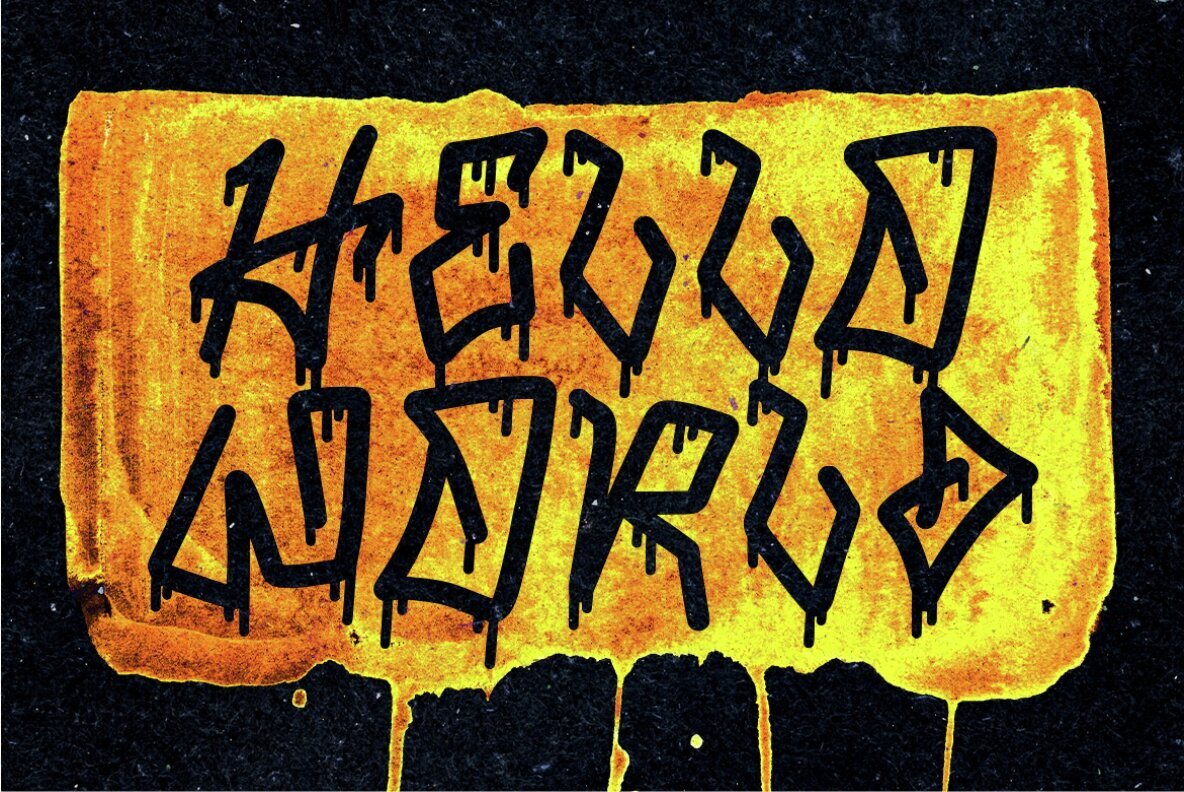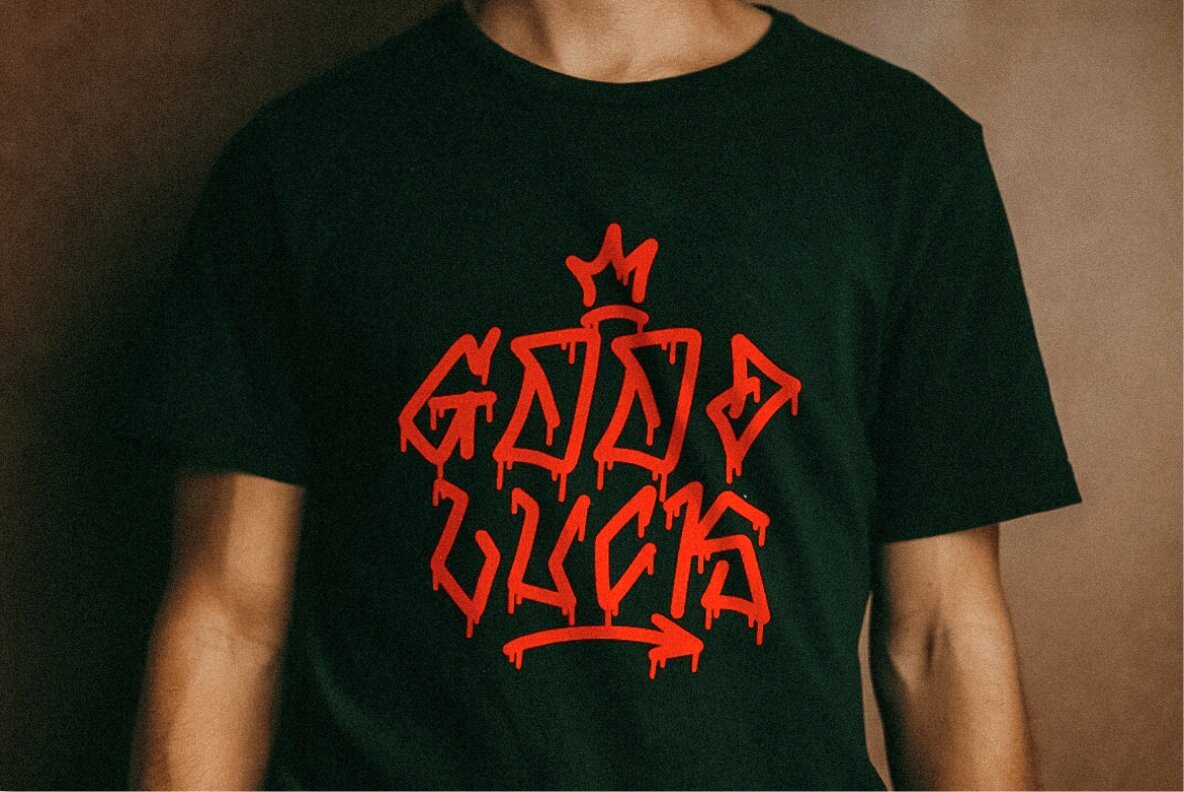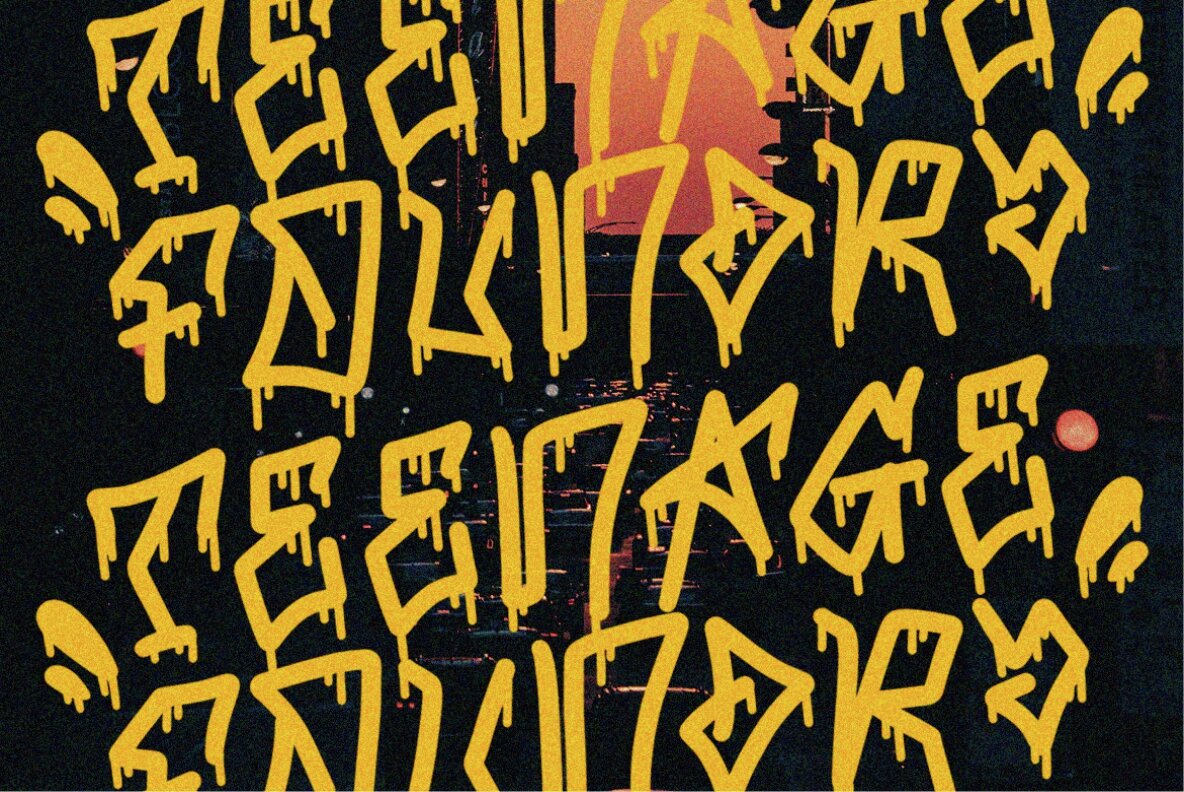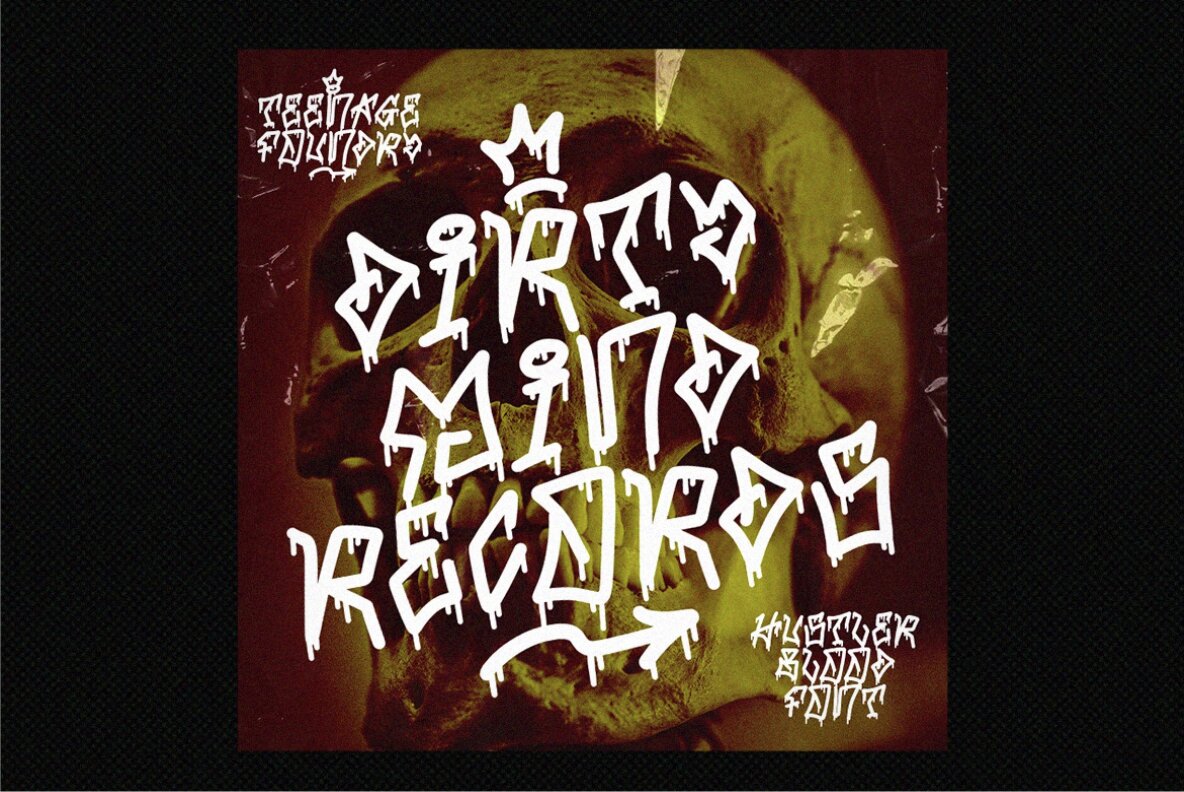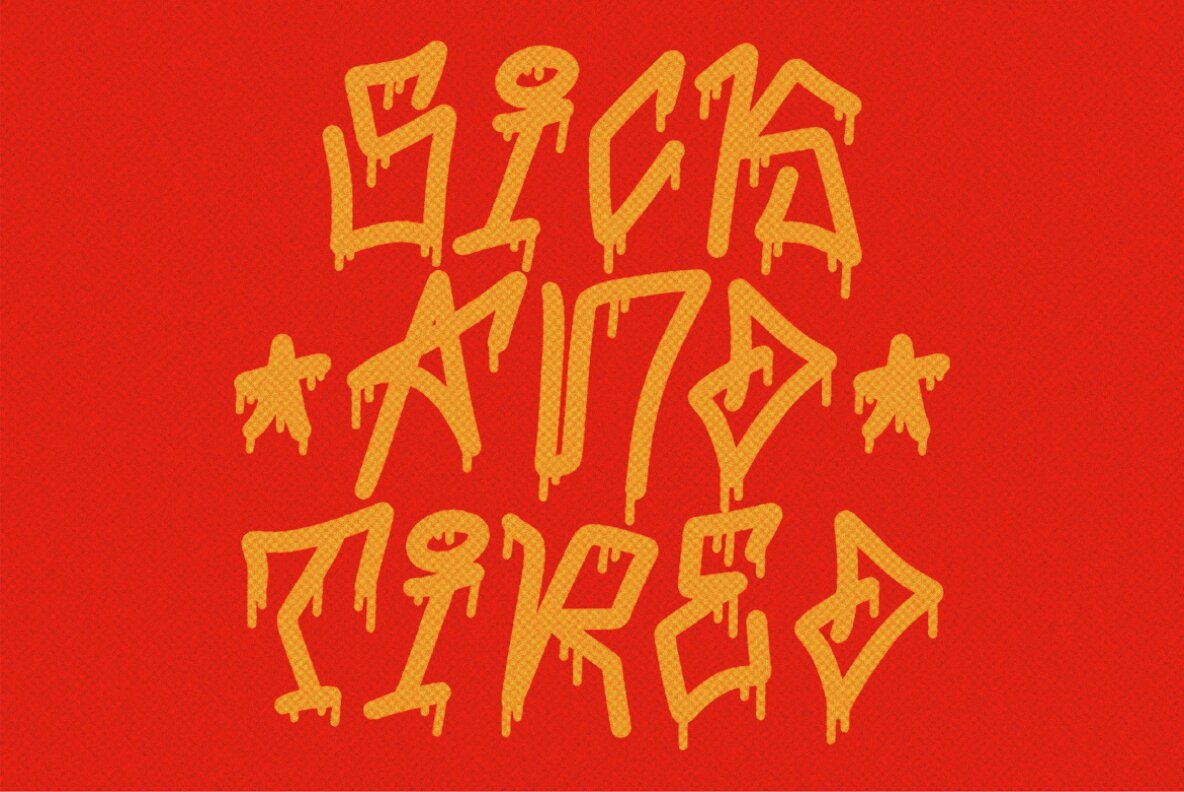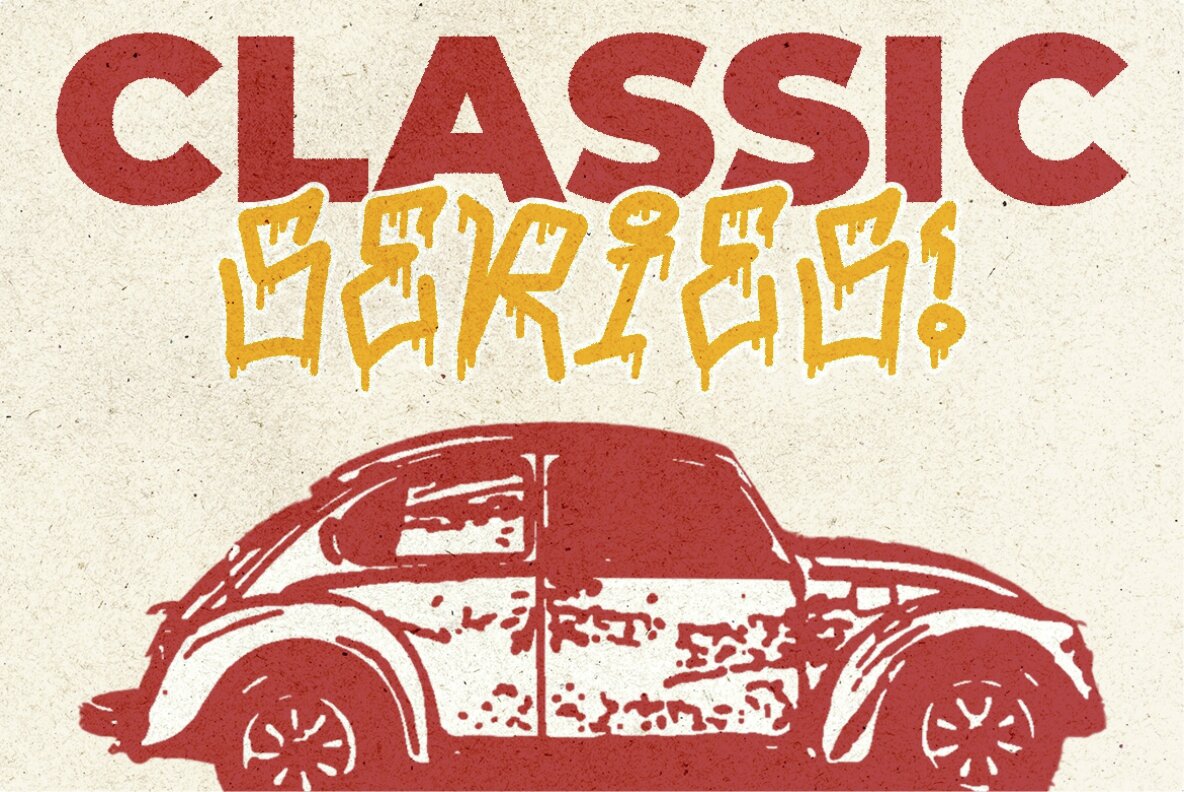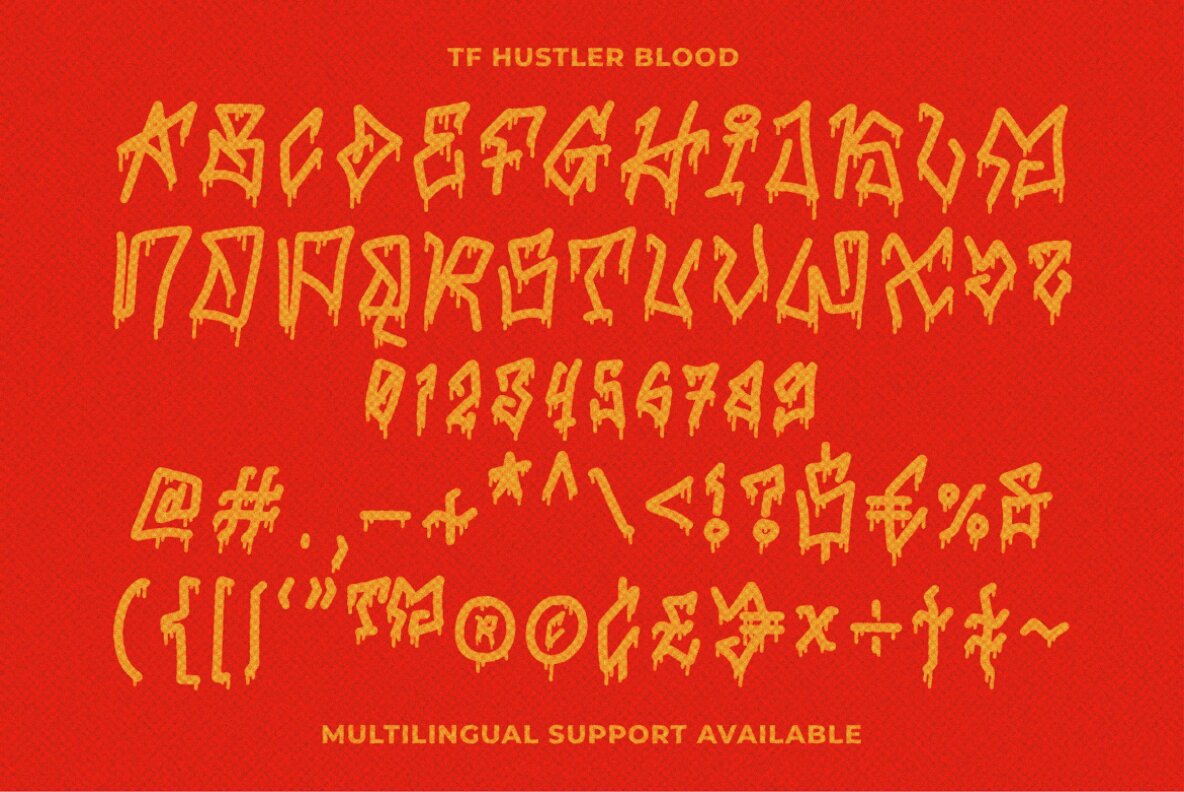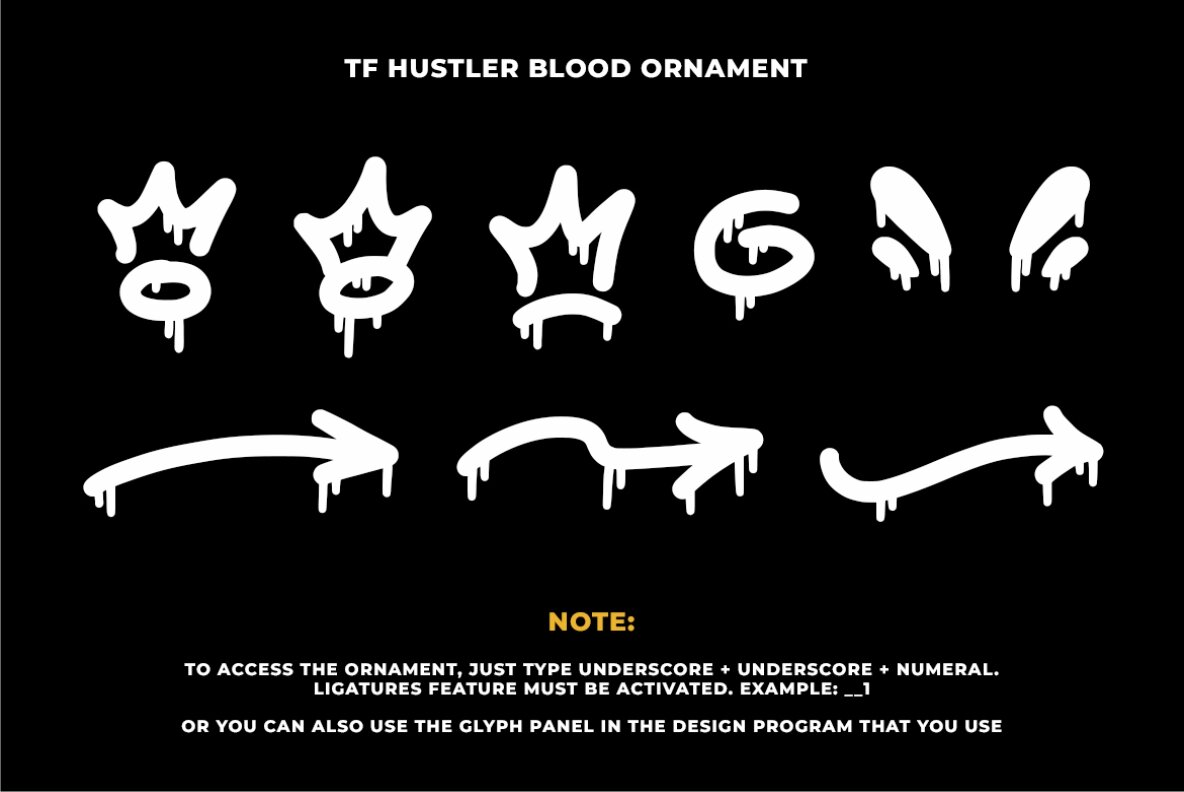
TF Hustler Blood Font
TF Hustler Blood
TF Hustler Blood by Teenage Foundry is a graffiti font designed to infuse creativity into your projects. Featuring a distinct monoline style paired with vibrant paint splashes, this font ensures a unique and eye-catching aesthetic. Includes uppercase and lowercase letters, numerals, punctuation, and supports multilingual use.TF Hustler Blood: Vibrant Graffiti Font
Standout Features